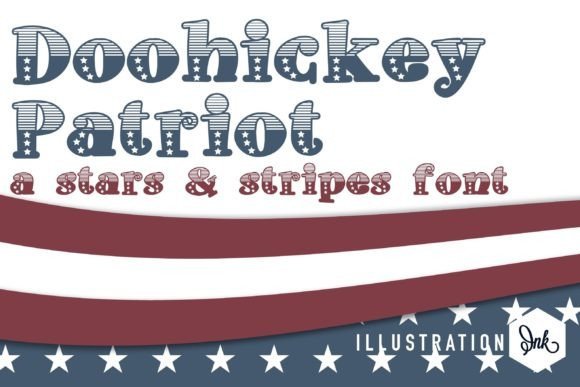
The Perfect Font for Your Patriotic Masterpiece
Who among us hasn’t been there – staring at a blank canvas, trying to come up with the perfect design to capture the essence of a special occasion? Maybe it’s a 4th of July party invitation or a book cover that needs a dash of American flair. Whatever the project, you know exactly what you’re looking for – a font that exudes patriotism and joy.
That’s where the Doohickey Patriot Font comes in – a fun and lively display font that’s sure to add a touch of whimsy to your creations. Whether you’re a seasoned designer or just starting out, this font is a valuable addition to your toolkit. Its versatility and playful charm make it perfect for posters, quotes, titles, and more.
Doohickey Patriot Font Key Features
- Font Family: A unique and bold display font designed to evoke patriotism and national pride.
- Unique Characteristics: Features a distinctive, hand-drawn look with bold lines and intricate details, giving it a one-of-a-kind feel.
Designer Review: Doohickey Patriot Font
I was excited to dive into the Doohickey Patriot Font, but my experience was a mixed bag. Here’s the lowdown:
- The font’s patriotic theme is a great conversation starter. It’s perfect for American-themed designs, especially around Independence Day.
- The Doohickey Patriot Font is highly legible, making it a great choice for body text or headlines.
- The font’s unique design elements, like the stars and stripes, add a touch of whimsy to any design.
- The font’s boldness can be overwhelming at times, making it difficult to read in certain contexts.
- The lack of italic and bold-italic styles limits its versatility.
- The font’s design elements can feel a bit kitschy or over-the-top in some designs.
While the Doohickey Patriot Font has its strengths, its limitations hold it back from being a top-tier font. It’s a great choice for specific designs, but it may not be the best fit for more general use. With some additional style options and refinement, this font could be truly special.
Tips for Getting the Most Out of the Doohickey Patriot Font
To get the most out of the Doohickey Patriot Font, use it in bold, patriotic designs, such as:
- Independence Day invitations and graphics
- Flag-inspired logos and branding
- Red, white, and blue-themed social media graphics